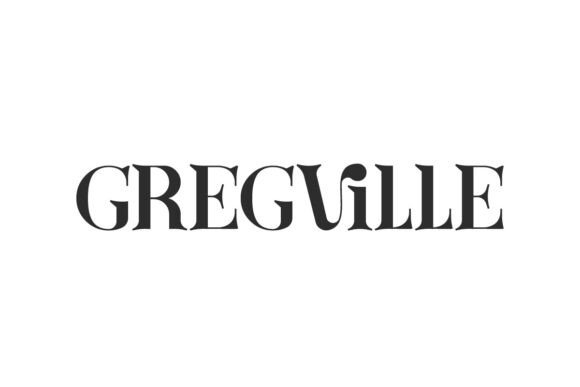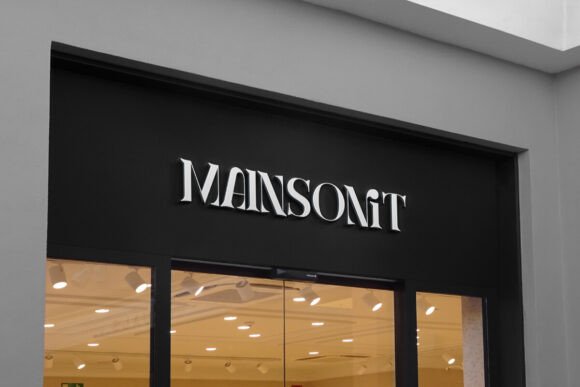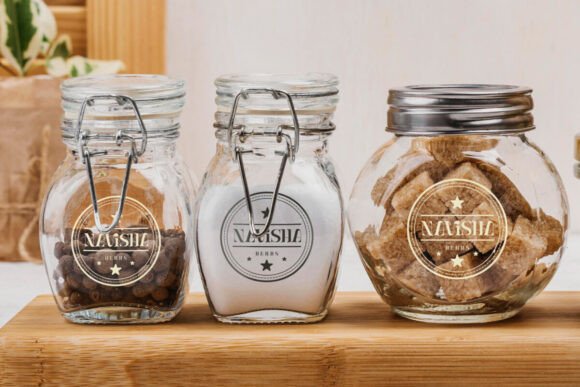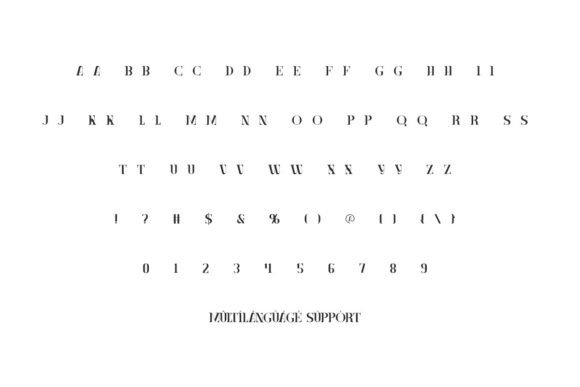
Gregville Font: A Bold Vintage Serif for Elegant Logo Design
About the Gregville Font
The Gregville Font offers a perfect balance of form and function for your design needs. Gregville is a bold serif font with vintage-inspired details and a modern edge. Perfect for logos, headlines, and sophisticated designs, Gregville brings a sense of classic charm and timelessness to any project. Stand out with its unique and artistic style!
Gregville’s strong, serifed forms excel in headlines, logos, and short-form text applications such as posters and packaging. Its vintage details add a touch of sophistication, making it ideal for brands aiming for a classic yet contemporary feel. However, its boldness makes it less suitable for body text or lengthy paragraphs, where readability would suffer. Avoid using it in user interfaces or situations requiring small point sizes.
Pairing Gregville effectively requires considering its assertive personality. A clean sans-serif like Open Sans or Lato provides a strong contrast and enhances legibility in supporting text. For a more luxurious feel, a delicate script font such as Great Vibes can be used for secondary elements, balancing Gregville’s boldness with a touch of elegance. Avoid pairing it with other heavily ornamented fonts to prevent visual clutter.
The overall personality of Gregville is confident and refined. It projects a sense of heritage and quality, working particularly well for brands in the luxury goods, fashion, or artisanal food sectors. Its vintage inspiration provides a sense of history without feeling dated, appealing to a sophisticated audience.